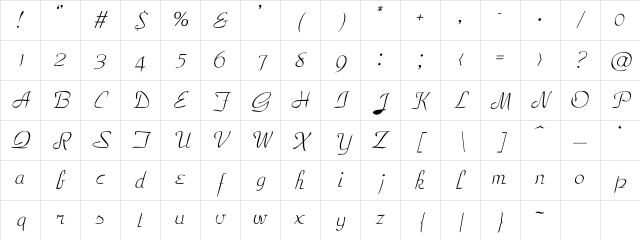
EleganceIt Regular
Design Context for EleganceIt
EleganceIt is a composed and adaptable typeface that performs quietly and consistently across a wide range of design contexts.